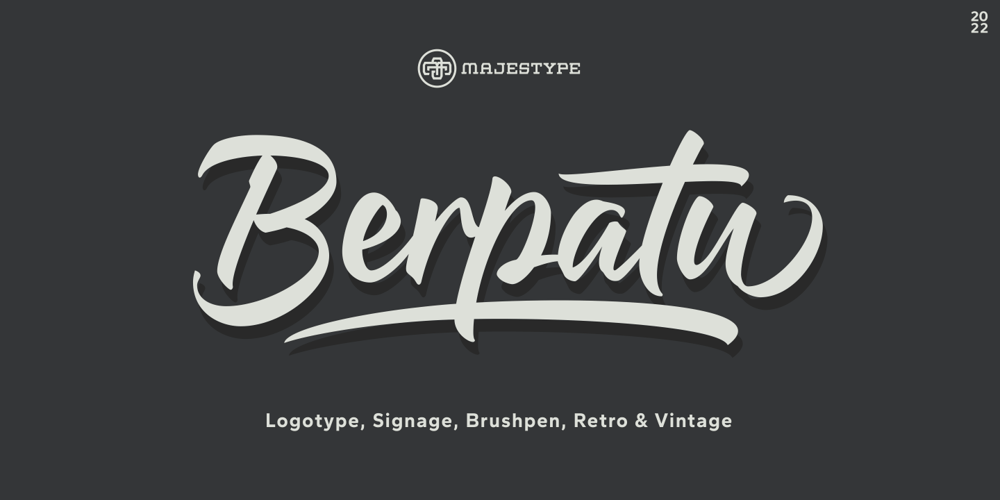
Berpatu Font Family was designed by Dexsar Harry Anugrah and published by Majestype. Berpatu contains 1 styles and family package options. Berpatu Brush Lettering Font: A Unique and Timeless Design SolutionAre you searching for a font that adds a touch of vintage charm to your designs? Look no further than Berpatu Brush Lettering Font! Inspired by classic retro and vintage designs seen in shop windows and street billboards, this font is created with passion using a brush pen.Berpatu features over 300 glyphs and supports OpenType features such as ligatures, contextual alternates, and swash variants, providing endless possibilities for your designs. It is ideal for use in signage, displays, titles, posters, t-shirts, logos, advertisements, billboards, packaging and more.This font is available in Catalan, Danish, German, English, Spanish, Estonian, Finnish, French, Irish, Icelandic, Italian, Norwegian, Portuguese, Slovenian, Albanian, and Swedish.For a unique and timeless design solution, try Berpatu Brush Lettering Font today!We hope you enjoy this font as much as we made it.Cheers and thank you so much!